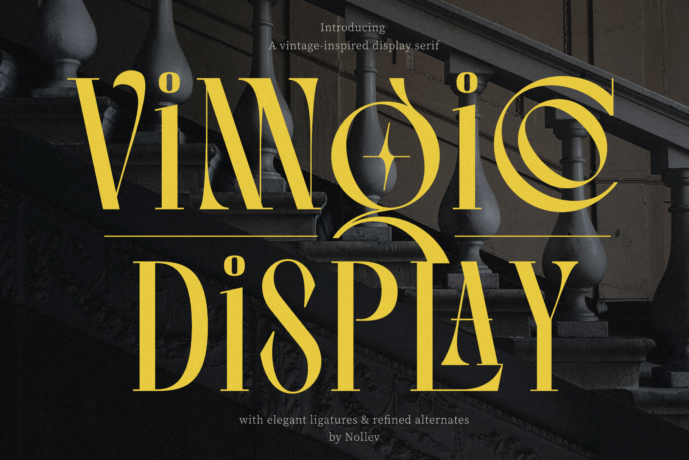
Vingico – Elegant Serif Display Font
Vingico is a high-contrast serif font that blends modern elegance with timeless charm. With refined shapes and bold contrast, it’s perfect for logos, headlines, and premium branding.